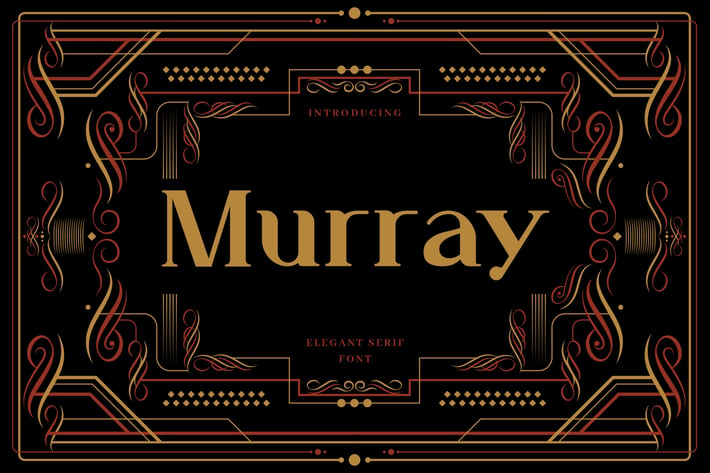
Murray - Art Deco Display Typeface
Introducing Murray font. Are you looking for a bold and solid art deco display font that has a vintage feeling? We can help! Try to download our Murray art deco font. The font is suitable to use for many occasion such as invitation, banner, movie title, brand, event, and many more :)